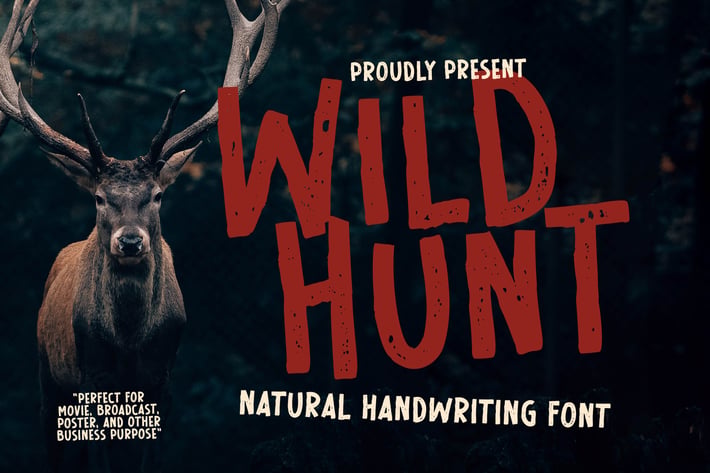
Wild Hunt Advertisement Font
Wild Hunt is a cool font that will complement all your designs! It has strong characters that will look particularly adept when used in logos, branding, packaging design, and much more. This masterfully designed typeface is a true must-have.